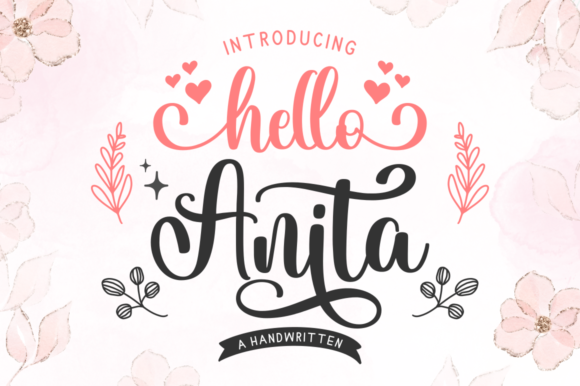
Journey into the world of Hello Anita, a graceful script font brimming with charm and playfulness. Its characters dance effortlessly along the baseline, exuding a lively and enchanting aura. Dive into a world of captivating stories, whimsical designs, and heartfelt expressions with this exquisite font.
Whether you're crafting Instagram stories that captivate, designing logos that exude elegance, or creating digital art that mesmerizes, Hello Anita is your trusted companion. Its PUA encoding grants you effortless access to a treasure trove of glyphs and ligatures, opening up a realm of creative possibilities.
Visualize your words transformed into captivating works of art, your ideas adorned with a touch of grace and whimsy. Let Hello Anita become your artistic muse, guiding you to create designs that resonate with your audience, leaving an indelible mark on their hearts.
With Hello Anita, storytelling takes on a new dimension. Engage your audience with enchanting social media posts, captivating marketing campaigns, and heartfelt invitations. Its charming characters lend a personal touch to every project, inviting viewers to embark on an unforgettable journey of words and emotions.
Unleash your creativity and let Hello Anita weave its magic into your designs. Its versatility knows no bounds, seamlessly adapting to a myriad of projects, from whimsical illustrations to elegant branding. Let your imagination run wild as you witness the transformation of ordinary text into extraordinary masterpieces.
Embrace Hello Anita, the font that ignites your passion for design and storytelling. Its captivating charm and playful spirit will leave you spellbound, inspiring you to create designs that captivate and enchant. Delve into the realm of creative possibilities and let Hello Anita be your guiding light.